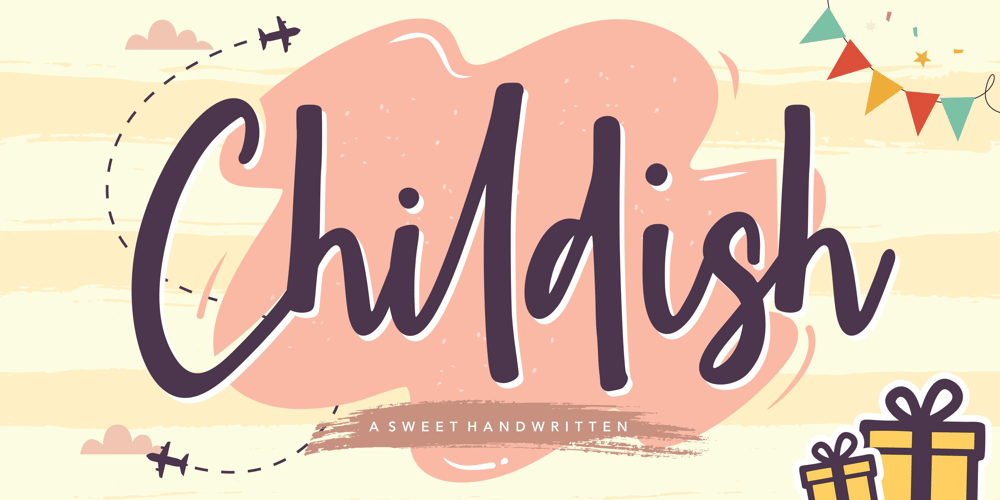
Childish
Childish font
Childish Font Family was designed by Restu Angga and published by Balpirick. Childish contains 1 styles and family package options. Proudly Present, Childish Font.Childish is a Sweet Handwritten Font. This sweet font has nice smooth lines.Childish is perfect for product packaging, branding project, magazine, social media, wedding, or just used to express words above the background.Enjoy the font, feel free to comment or feedback, send me PM or email.Thank you!